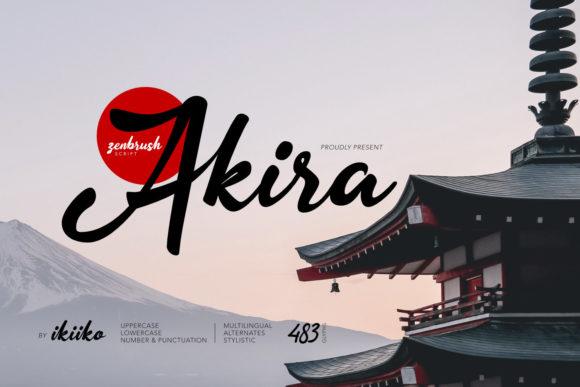
Akira Font Download Script Fonts If you’re in search of a font that whispers elegance and sings creativity, look no further than the Akira Font — a beautifully flowing, handwritten script typeface that’s perfect for romantic, feminine, or artistic designs. Whether you’re working on a wedding invitation, a social media post, or a fashion branding project, Akira delivers a touch of grace that makes your words feel alive.
What is the Akira Font?
Akira Font is a handwritten script font that blends delicate strokes with natural curves. Its letters feel fluid and expressive, yet they maintain excellent legibility. Designed with attention to balance and flow, Akira is a font that effortlessly combines artistry with readability.
This font is often favored for:
Elegant wedding stationery
Beauty and lifestyle branding
Feminine blog headers
Personalized crafts and Cricut projects
Romantic quotes and social media captions
Its sophisticated design and easy-to-use format (including full PUA encoding) make it ideal for both professionals and hobbyists.
Key Features of Akira Font
Let’s explore what makes Akira such a sought-after script typeface:
✨ Elegant Handwritten Style
Akira stands out with its delicate curves, flowing lines, and natural movement, giving it a romantic and handwritten look that feels authentic and personal.
✨ Balanced Characters
Each letterform in Akira is crafted with balance and proportionality in mind. Whether used for one word or a full paragraph, the font looks polished and cohesive.
✨ PUA Encoded
Akira is PUA encoded, which means it includes swashes, alternates, and special glyphs that are accessible even without professional design software. Just copy and paste from the character map into your favorite program.
✨ Compatible with Cricut & Silhouette
Because of its clean lines and smooth curves, Akira works beautifully with cutting machines like Cricut, Silhouette Cameo, and others — perfect for DIY enthusiasts!
✨ Multilingual Support
Many versions of Akira come with multilingual support, making it suitable for global projects across different languages.
Where Can You Use Akira Font?
Akira is not just pretty — it’s also versatile. Here are some top scenarios where this elegant font can make a big impact:
💍 Wedding Invitations & Stationery
Akira is perfect for weddings. Use it for invitation headers, RSVP cards, save-the-date announcements, or guest seating charts.
🧖♀️ Beauty & Lifestyle Branding
Beauty salons, skincare brands, fashion boutiques, or Instagram influencers can use Akira to create soft and luxurious branding.
🎁 Gift Tags & Greeting Cards
Create personalized cards, tags, and custom gift items that express love and thoughtfulness with a handwritten charm.
📱 Instagram Quotes & Canva Templates
Use Akira in Canva to design feminine quote posts, stories, Pinterest pins, and aesthetic mood boards.
🧵 DIY & Crafting Projects
If you’re into DIY — especially with Cricut — Akira makes a beautiful choice for mugs, tumblers, vinyl stickers, or tote bag designs.
📝 Blogging & Header Designs
Feminine lifestyle blogs or travel bloggers often look for fonts like Akira to create gorgeous blog headers and branded images.
Font Pairing Tips for Akira
Since Akira is a script font, it pairs best with clean, minimalist fonts that let its elegance shine. Here are some recommended pairings:
| Font Name | Style | Why It Works |
|---|---|---|
| Montserrat | Sans-serif | A modern geometric contrast to Akira’s curves |
| Playfair Display | Serif | Adds sophistication and class |
| Raleway | Sans-serif | Light and simple, perfect for body text |
| Lora | Serif | Elegant yet neutral, complements romantic scripts |
| Open Sans | Sans-serif | Clean and readable for web use |
Tip: Use Akira for headings, logos, or key design elements, and the secondary font for supporting text to maintain readability.
❓ How do I access swashes and alternates?
Final Thoughts
The Akira Font is a celebration of elegance, romance, and natural beauty in type design. Whether you’re a wedding planner, a lifestyle blogger, or a craft enthusiast, Akira can add a handwritten charm to your creative work that feels both personal and professional.